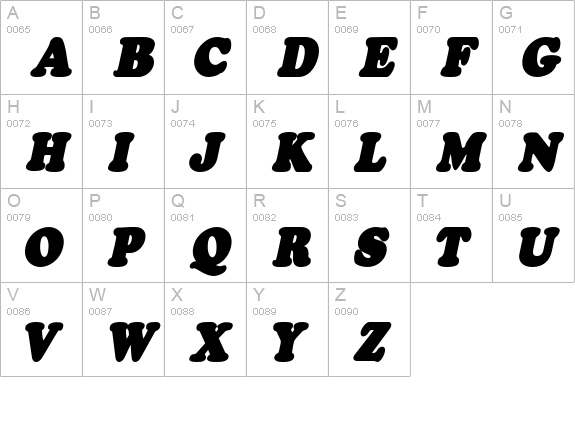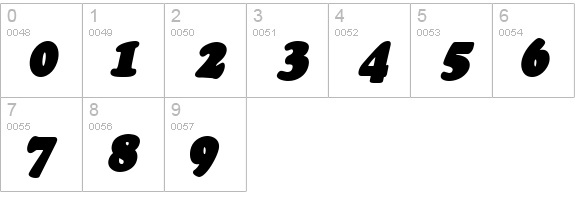
Fatso Italic CS is a distinctive, italic variant in the Fatso typeface family \xE2\x80\x94 well suited to design and typography projects.
Fatso Italic CS font is a charming and playful typeface that adds a touch of whimsy to any design project. Its rounded and slightly exaggerated curves give it a unique personality, making it perfect for headlines, logos, and display text. The italic style of this font adds a dynamic and energetic feel, making it stand out from the crowd. What's even better is that Fatso Italic CS font is available for free download at FontsMarket.com. This means you can easily access and use this delightful font in your projects without any cost. Whether you're a designer looking to add some character to your work or a creative individual wanting to spice up your personal projects, Fatso Italic CS font is a fantastic choice that won't break the bank. Download it today and let your creativity shine!